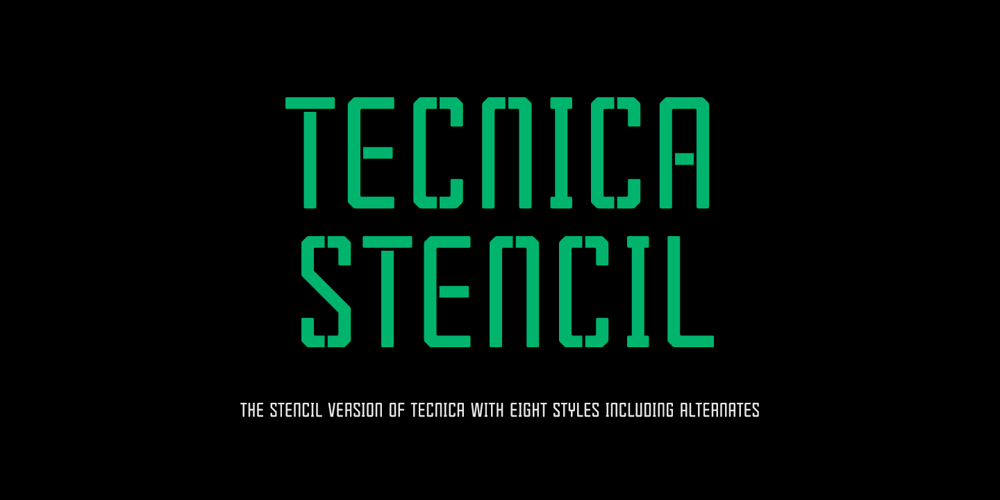
Tecnica Stencil
Tecnica Stencil font
Tecnica Stencil Font Family was designed by Pablo Balcells and published by Graviton. Tecnica Stencil contains 8 styles and family package options. Tecnica Stencil font family is the stencil version of Tecnica font family, it has been designed for Graviton Font Foundry by Pablo Balcells in 2014. Tecnica Stencil consists of 8 styles. The 4 “Stencil 1” styles contain a narrow stem for big sizes type and/or rigid materials printing, and the 4 “Stencil 2” styles contain a wide stem for small sizes type and/or light materials printing.